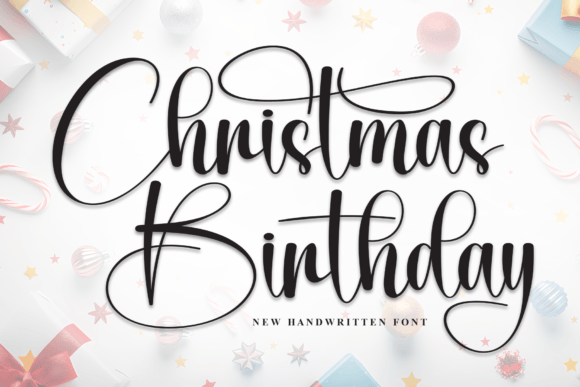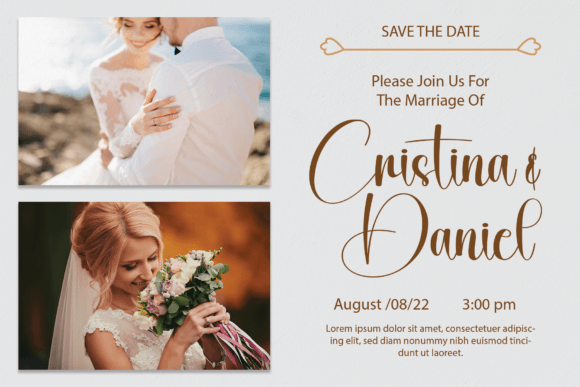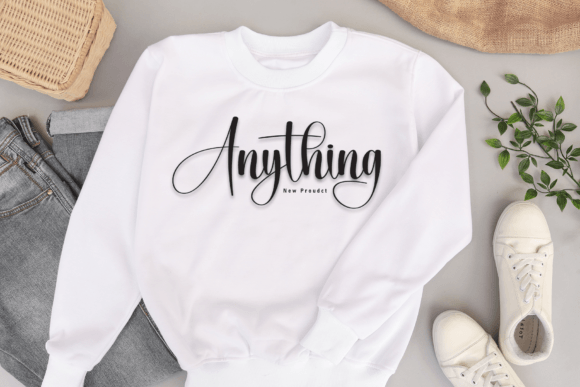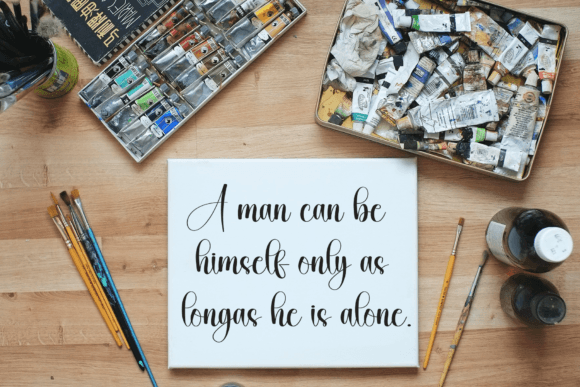
Christmas Birthday Font
About the Christmas Birthday Font
Discover the charm of Christmas Birthday Font. This font is a perfect blend of modern aesthetics and classic appeal. Christmas Birthday is a stylish handwritten script font that exudes elegance and charm with its flowing, graceful curves. Perfect for invitations, logos, and branding, it adds a personal and sophisticated touch to any design. The font’s delicate strokes bring warmth and creativity to your projects.
Christmas Birthday Font Usage Examples
Christmas Birthday Font Example